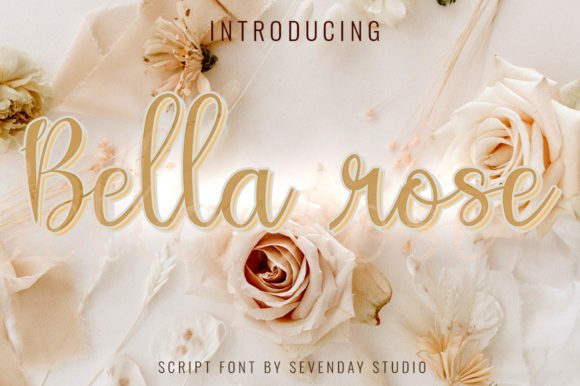
The Perfect Script: Bella Rose Font for Your Next Design Project
Have you ever stared at a blank page, pen in hand, waiting for inspiration to strike? For designers, this moment is all too familiar. It’s the spark that sets off a creative chain reaction, leading to something truly special. And for those who’ve been searching for the perfect script font to elevate their designs, we’re excited to introduce you to the Bella Rose Font.
This delicate script font is designed to add a touch of elegance and sophistication to your work. Whether you’re creating invitation cards, flyers, or event posters, the Bella Rose Font is the perfect choice. Its classy, modern look makes it versatile and valuable for designers who want to create high-quality items that stand out from the crowd.
Bella Rose Font Key Features
- Font Style: A beautiful, elegant script font with a touch of romance and sophistication.
- Unique Characteristics: Features intricate, flowing lines and subtle flourishes, making it perfect for wedding invitations, greeting cards, and other special occasions.
Bella Rose Font Review
I recently had the chance to work with the Bella Rose Font, and I have to say, it’s a lovely addition to any design project. ✨ Here are some things that work well:
- Soft, feminine aesthetic: The Bella Rose Font is perfect for projects that require a touch of elegance and sophistication.
- High-quality typography: The font is well-crafted, with clean lines and a consistent feel throughout.
- Multiple weights: The font comes in a range of weights, from light to bold, making it easy to use in a variety of contexts.
However, as with any font, there are some limitations to be aware of: ⚠️
- Not ideal for bold or dramatic designs: While the font is great for elegant projects, it may not be the best choice for bold or dramatic designs, where a more attention-grabbing font might be needed.
- May not be as versatile as some other fonts: While the Bella Rose Font is great for a variety of projects, it may not be as versatile as some other fonts that can be used in a wider range of contexts.
Overall, I think the Bella Rose Font is a great choice for designers who want to add a touch of elegance and sophistication to their projects. With its high-quality typography and soft, feminine aesthetic, it’s a great addition to any design library.
Getting the Most Out of the Bella Rose Font
To get the most out of the Bella Rose Font, use it in combination with elegant graphics and pastel colors. This font is particularly well-suited for wedding invitations, baby shower invitations, and other feminine designs.
The Bella Rose Font is commonly used for:
- Baby shower invitations and decorations
- Feminine business cards and marketing materials
- Personalized gifts and stationery
What is the recommended font size and line height for the Bella Rose Font?
The recommended font size for the Bella Rose Font is between 12 and 14 points, depending on the design application and the desired level of legibility. For optimal readability, we recommend a line height of at least 1.2 to 1.5 times the font size.